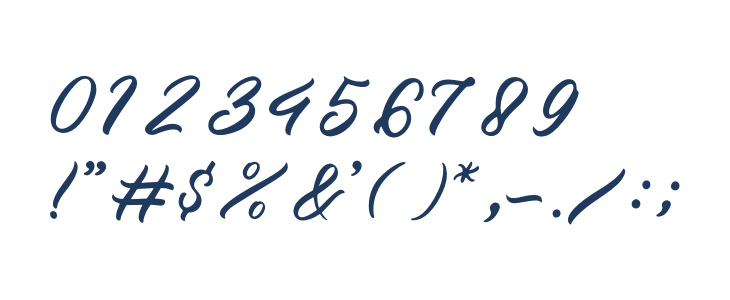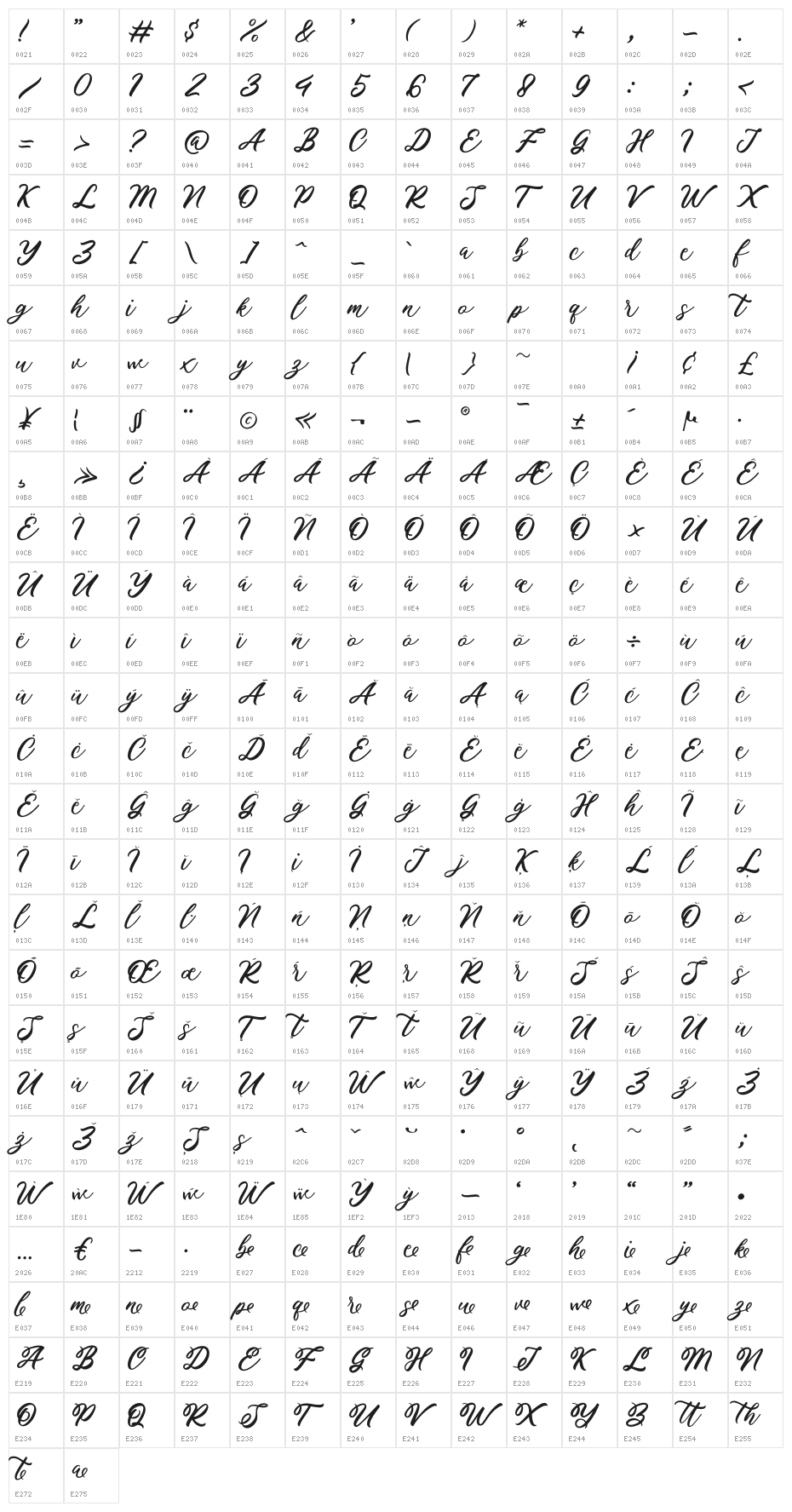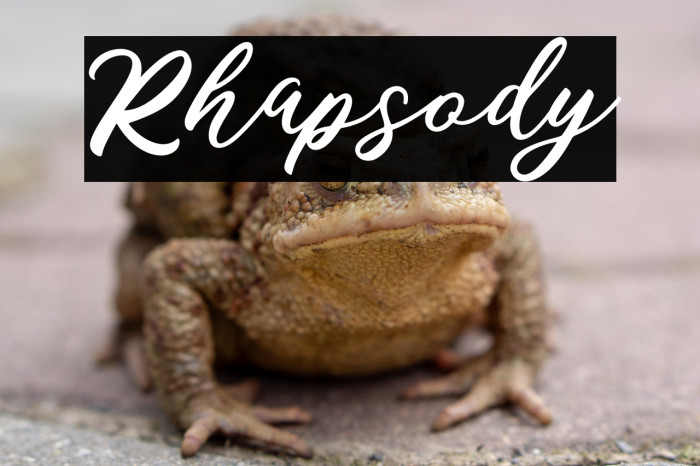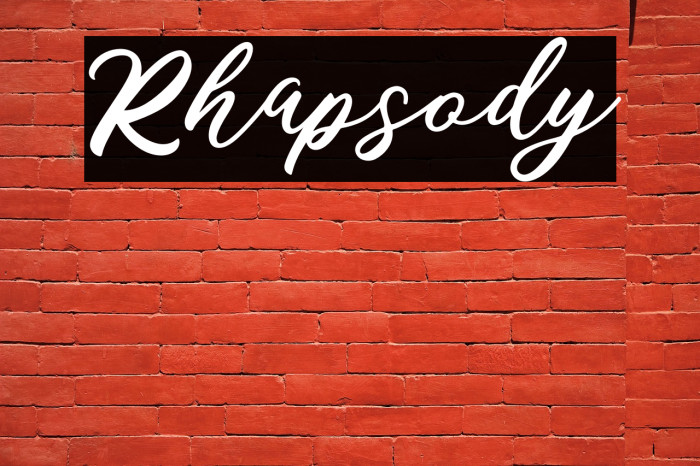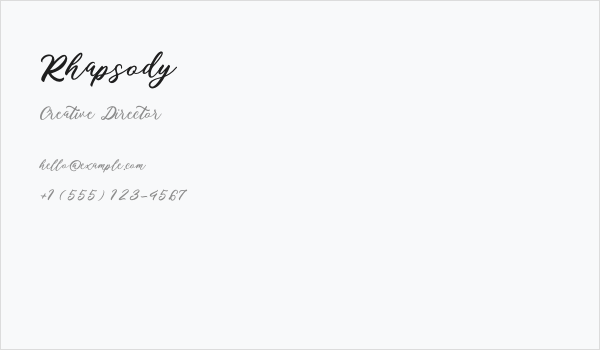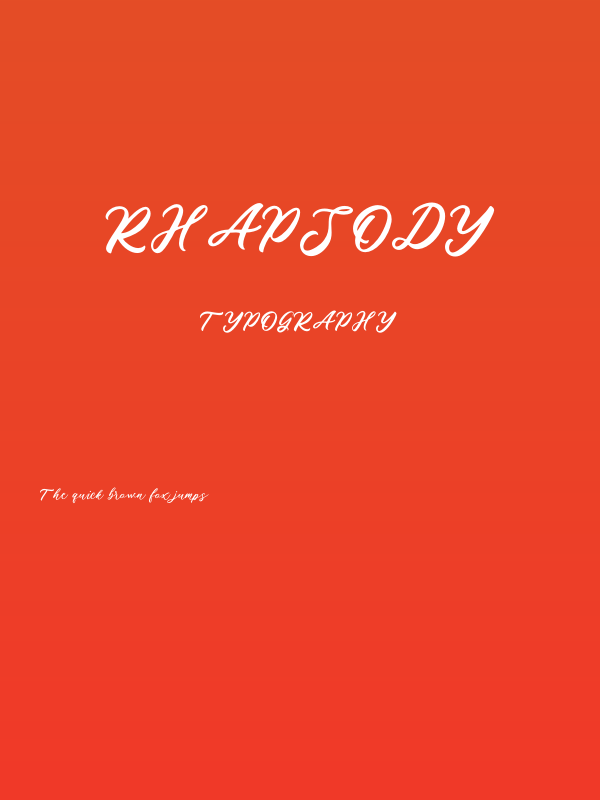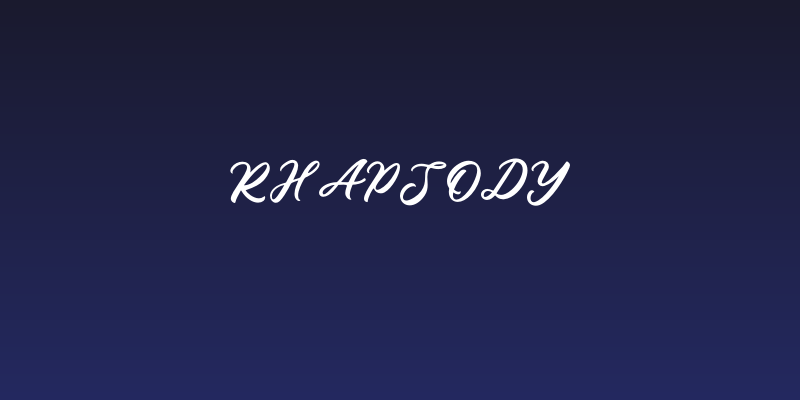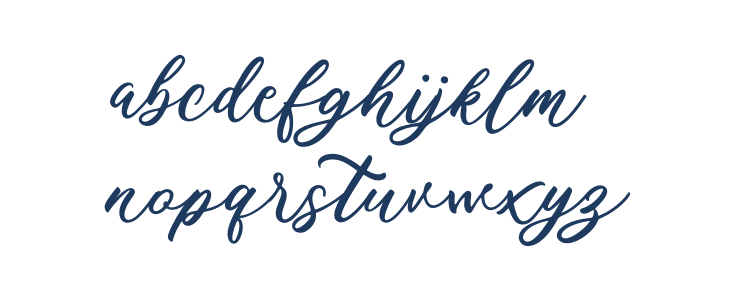
Rhapsody Font
Rhapsody Description
This font exudes elegance and fluidity, characterized by its cursive, handwritten style. The letters are interconnected, creating a seamless flow that mimics natural handwriting. The strokes are bold and confident, with a consistent thickness that adds to its legibility. The uppercase letters are slightly more ornate, with flourishes that enhance their decorative appeal. The lowercase letters maintain a smooth and graceful appearance, complementing the uppercase set. Numbers and special characters are designed to match the overall aesthetic, ensuring uniformity across all elements. This font is ideal for projects that require a personal touch, such as invitations, greeting cards, or branding materials.